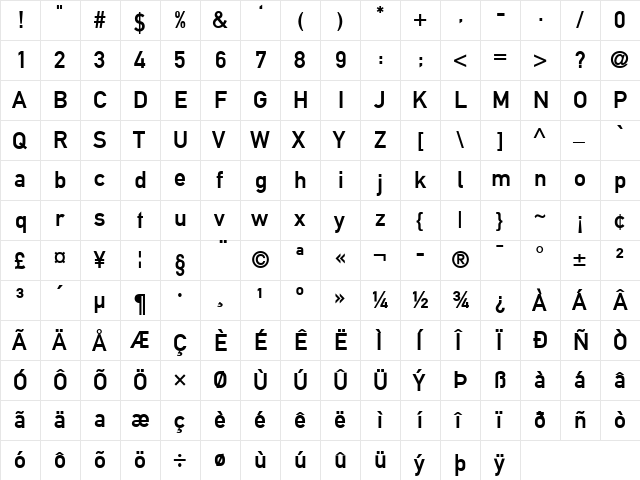
Alte DIN 1451 Mittelschrift gepraegt Regular
| Foundry | Peter Wiegel, nach dem Entwurf von Ludwig Goller (1936) |
Design Context for Alte DIN 1451 Mittelschrift gepraegt Typeface
Alte DIN 1451 Mittelschrift gepraegt offers clean, dependable letterforms without strong stylistic allegiance, making it a practical choice for designers who need flexibility.